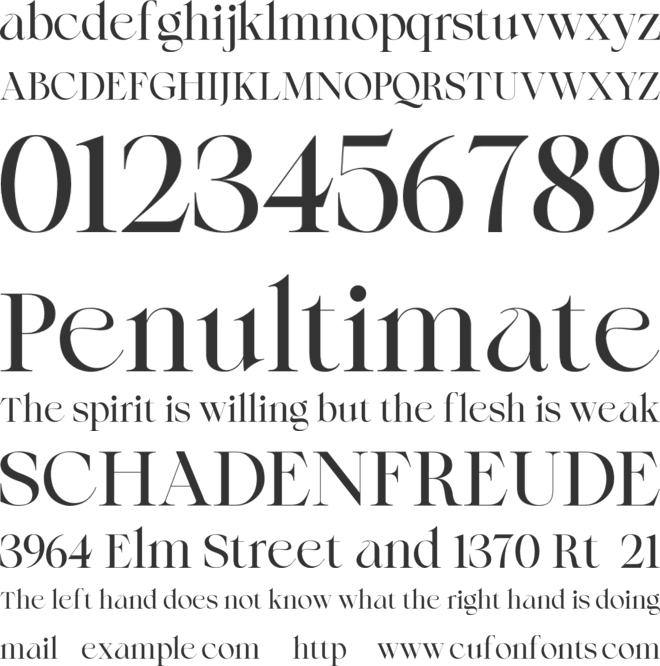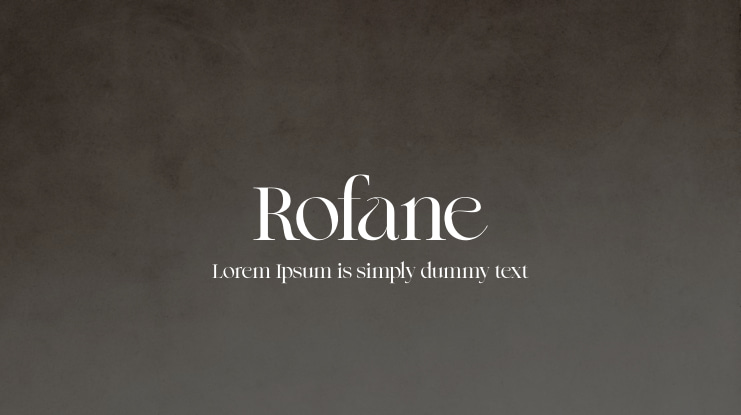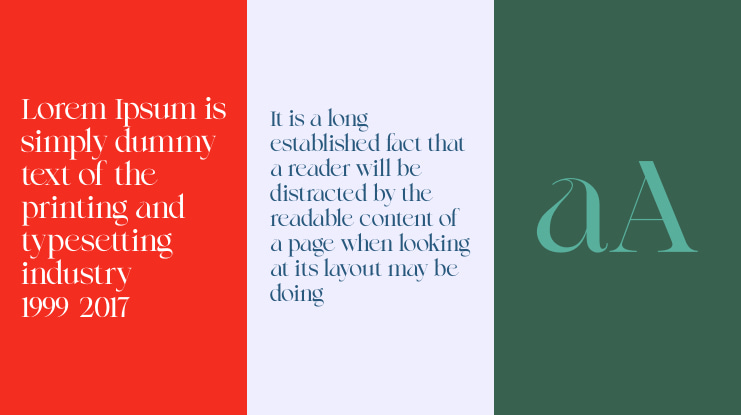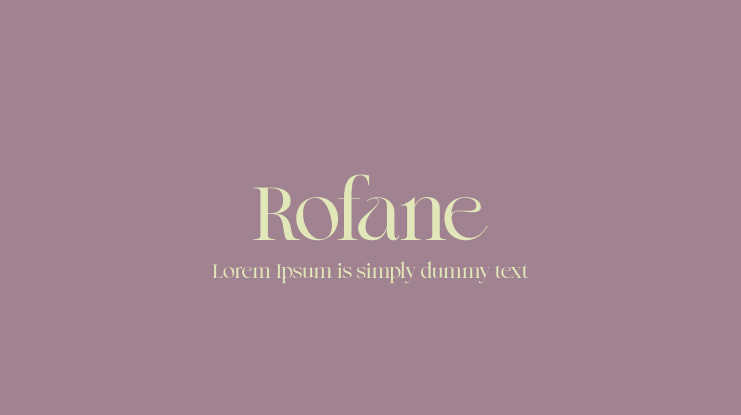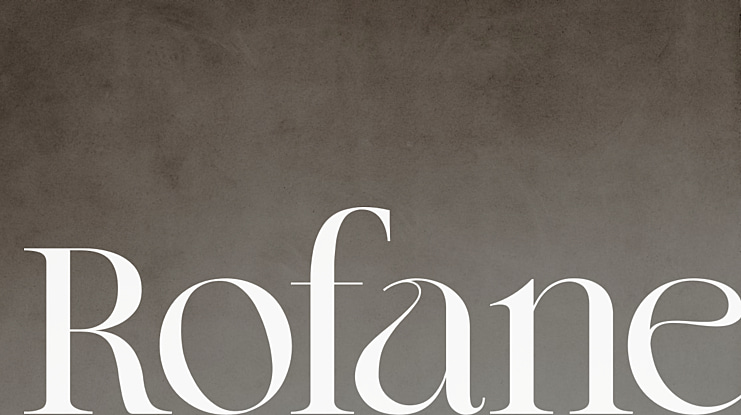
Introducing Rofane Typeface, an elegant and contemporary font that embodies timeless charm and sophistication. With meticulous attention to detail, the typeface features precise kerning and spacing to achieve a visually pleasing aesthetic. It is available in two styles, regular and italic, and is sure to bring a touch of luxury to any design project you embark on.
Rofane Typeface is particularly well-suited for layout designs of quotes or body copy. It shines as a display font for headings, logos, branding, magazines, product packaging, and invitations. It offers endless possibilities for creating logotypes and more.